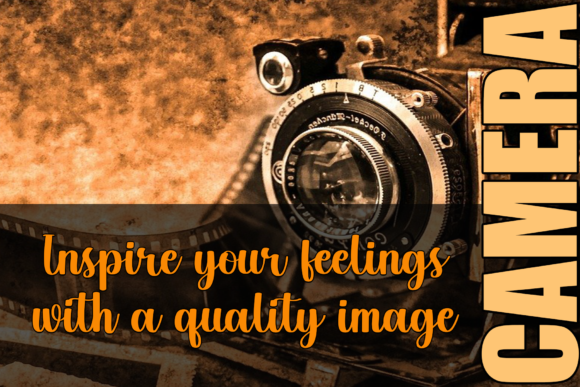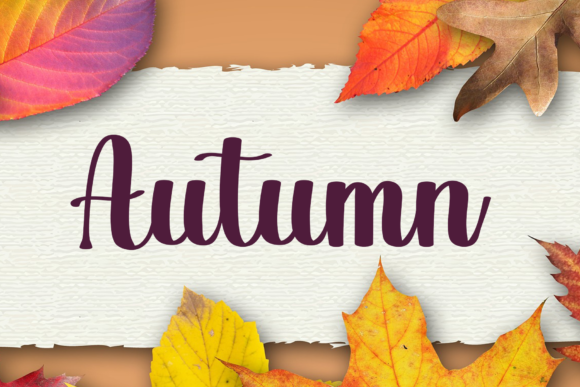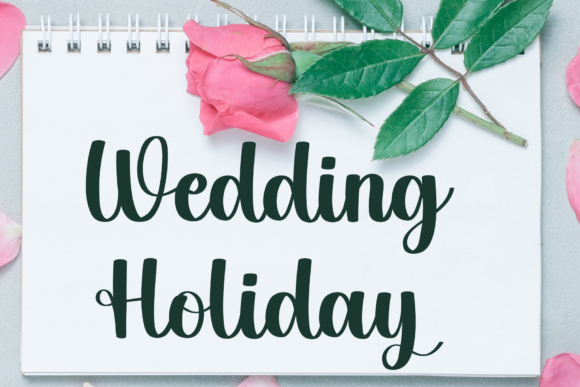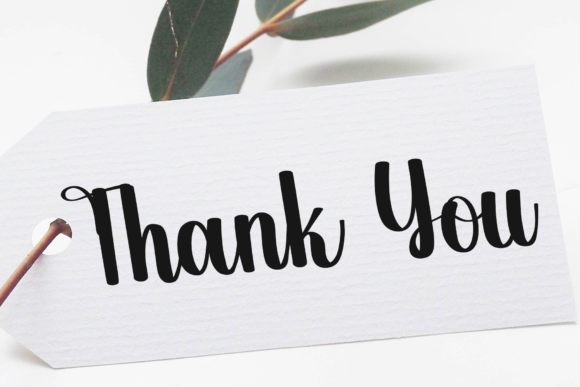
Introducing Autography Font: Elevate Your Designs with Elegance and Sophistication
Are you a designer or crafter looking for a font that exudes elegance and sophistication? Look no further than Autography Font, a beautiful and slim handwritten font that is sure to elevate your designs to the next level. With its clean lines, flowing curves, and impressive typography, Autography Font is the perfect choice for a wide range of projects, from wall displays and wedding invitations to social media post logos, advertisements, product packaging, and more.
What Makes Autography Font So Special?
Autography Font is a unique and versatile font that offers a range of benefits for designers and crafters. Here are just a few reasons why Autography Font stands out:
- Beautiful and Slim Design: Autography Font features a slim and elegant design that is perfect for creating visually appealing text. Its clean lines and flowing curves make it easy to read and understand, while its slim profile ensures that it won’t overwhelm your design.
- Handwritten Style: Autography Font has a beautiful handwritten style that adds a personal touch to your designs. Its unique and organic look makes it perfect for creating custom and bespoke designs that stand out from the crowd.
- Impressive Typography: Autography Font features impressive typography that is sure to grab attention. Its elegant and sophisticated design makes it perfect for creating high-end designs that require a touch of luxury.
- Versatile: Autography Font is incredibly versatile and can be used for a wide range of projects, from wall displays and wedding invitations to social media post logos, advertisements, product packaging, and more.
Uses for Autography Font
Autography Font is a versatile font that can be used for a wide range of projects. Here are just a few ideas to get you started:
- Wall Displays: Use Autography Font to create stunning wall displays that are sure to grab attention. Its elegant and sophisticated design makes it perfect for creating custom wall art that adds a touch of luxury to any room.
- Wedding Invitations: Autography Font is perfect for creating beautiful and elegant wedding invitations. Its handwritten style and impressive typography make it a popular choice for couples looking for a unique and bespoke design.
- Social Media Post Logos: Use Autography Font to create stunning social media post logos that are sure to stand out from the crowd. Its clean lines and flowing curves make it easy to read and understand, while its slim profile ensures that it won’t overwhelm your design.
- Advertisements: Autography Font is perfect for creating eye-catching advertisements that require impressive typography. Its elegant and sophisticated design makes it a popular choice for brands looking for a high-end font that exudes luxury.
- Product Packaging: Use Autography Font to create stunning product packaging that stands out from the crowd. Its unique and organic look makes it perfect for creating custom and bespoke designs that reflect your brand’s personality.
- Product Designs: Autography Font is perfect for creating beautiful and elegant product designs that require impressive typography. Its clean lines and flowing curves make it easy to read and understand, while its slim profile ensures that it won’t overwhelm your design.
- Labels: Use Autography Font to create stunning labels that are sure to grab attention. Its elegant and sophisticated design makes it perfect for creating custom labels that add a touch of luxury to any product.
- Photography: Autography Font is perfect for creating beautiful and elegant watermarks that add a touch of sophistication to your photography. Its clean lines and flowing curves make it easy to read and understand, while its slim profile ensures that it won’t overwhelm your design.
- Invitations: Autography Font is perfect for creating stunning invitations that require impressive typography. Its elegant and sophisticated design makes it a popular choice for couples and event planners looking for a unique and bespoke design.
- Stationery: Use Autography Font to create beautiful and elegant stationery that adds a touch of luxury to any correspondence. Its clean lines and flowing curves make it easy to read and understand, while its slim profile ensures that it won’t overwhelm your design.
Why Choose Autography Font?
Autography Font is a high-quality font that offers a range of benefits for designers and crafters. Here are just a few reasons why you should choose Autography Font for your next project:
- Unique and Organic Look: Autography Font has a unique and organic look that sets it apart from other fonts. Its handwritten style and impressive typography make it perfect for creating custom and bespoke designs.
- Elegant and Sophisticated: Autography Font is an elegant and sophisticated font that exudes luxury. Its clean lines and flowing curves make it easy to read and understand, while its slim profile ensures that it won’t overwhelm your design.
- Easy to Read and Understand: Autography Font is easy to read and understand, making it perfect for creating designs that require clear and concise typography.
Overall, Autography Font is a beautiful and slim handwritten font that is perfect for designers and crafters looking for a unique and elegant font. Its impressive typography, clean lines, and flowing curves make it a popular choice for a wide range of projects, from wall displays and wedding invitations to social media post logos, advertisements, product packaging, and more.